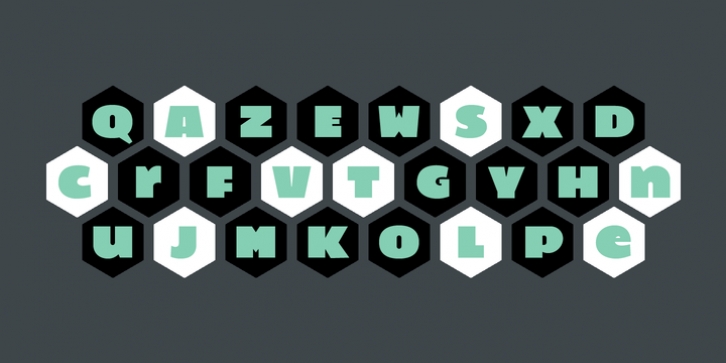
Filt Pro was designed by Martin Lexelius and published by Martin Lexelius Core. Filt Pro contains 1 style.
Filt is based on hand-drawn sketches; no geometry, all visual. At the same time the curves are digitally constructed with extreme accuracy. The result – aggressive, playful, eager and ultra bold. This makes Filt a great headline and display unicase font. Filt Pro comes with a Greek set aswell.